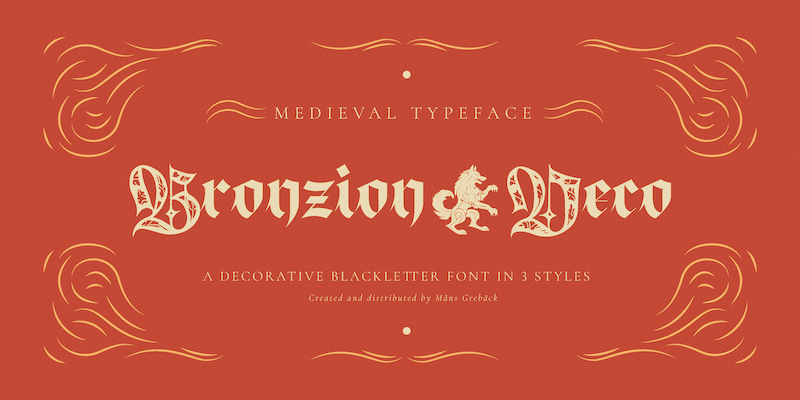
Preview and download Bronzion Deco Font. Created by Måns Grebäck in Gothic Medieval styles with Free for personal use license.
NOTE: This font is for PERSONAL USE ONLY! To purchase a commercial license, visit: http://mn.sg/bronzion Bronzion Deco is an illuminated blackletter typeface rooted in medieval aesthetics. Use characters 🌲🌳🎠🐂🐅🐆🐈🐉🐎🐕🐦🐯🐲🐺👑👸🗡🤴🦁🦅🦇🦌🦎🦓🦖 to create heraldry-like logos and symbols. Example: Magic🐉Empire For questions, please visit www.mansgreback.com/faq |